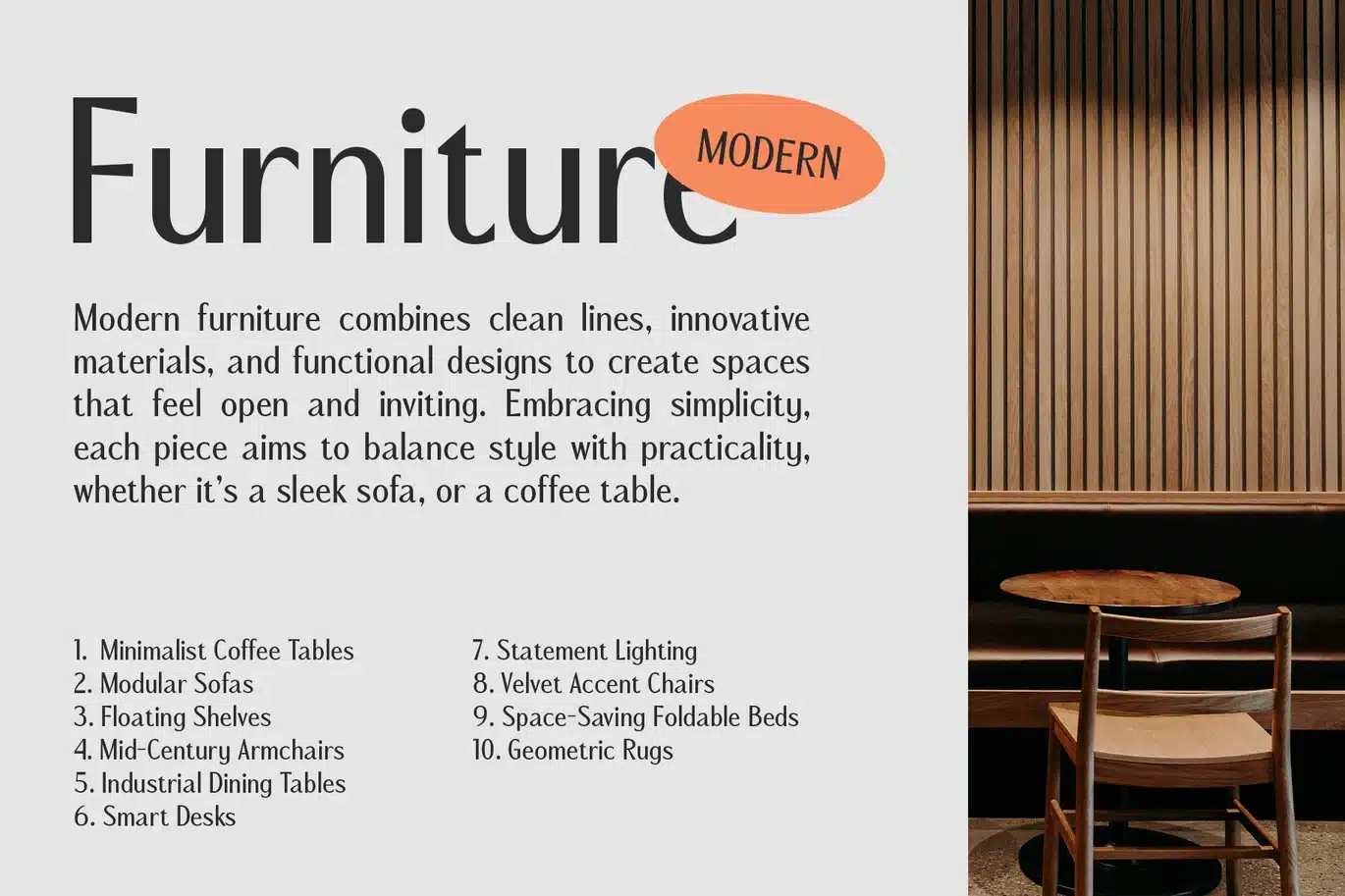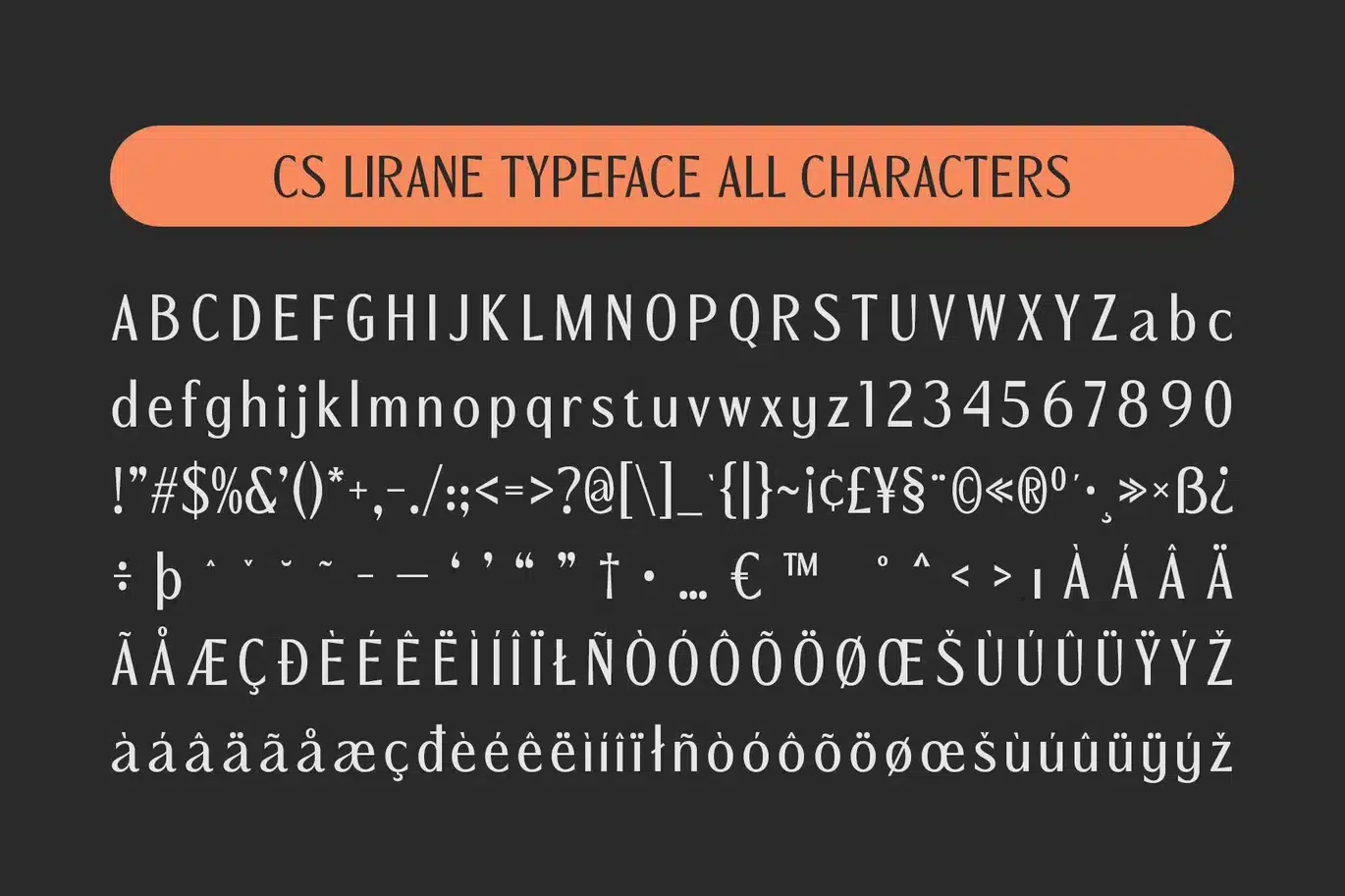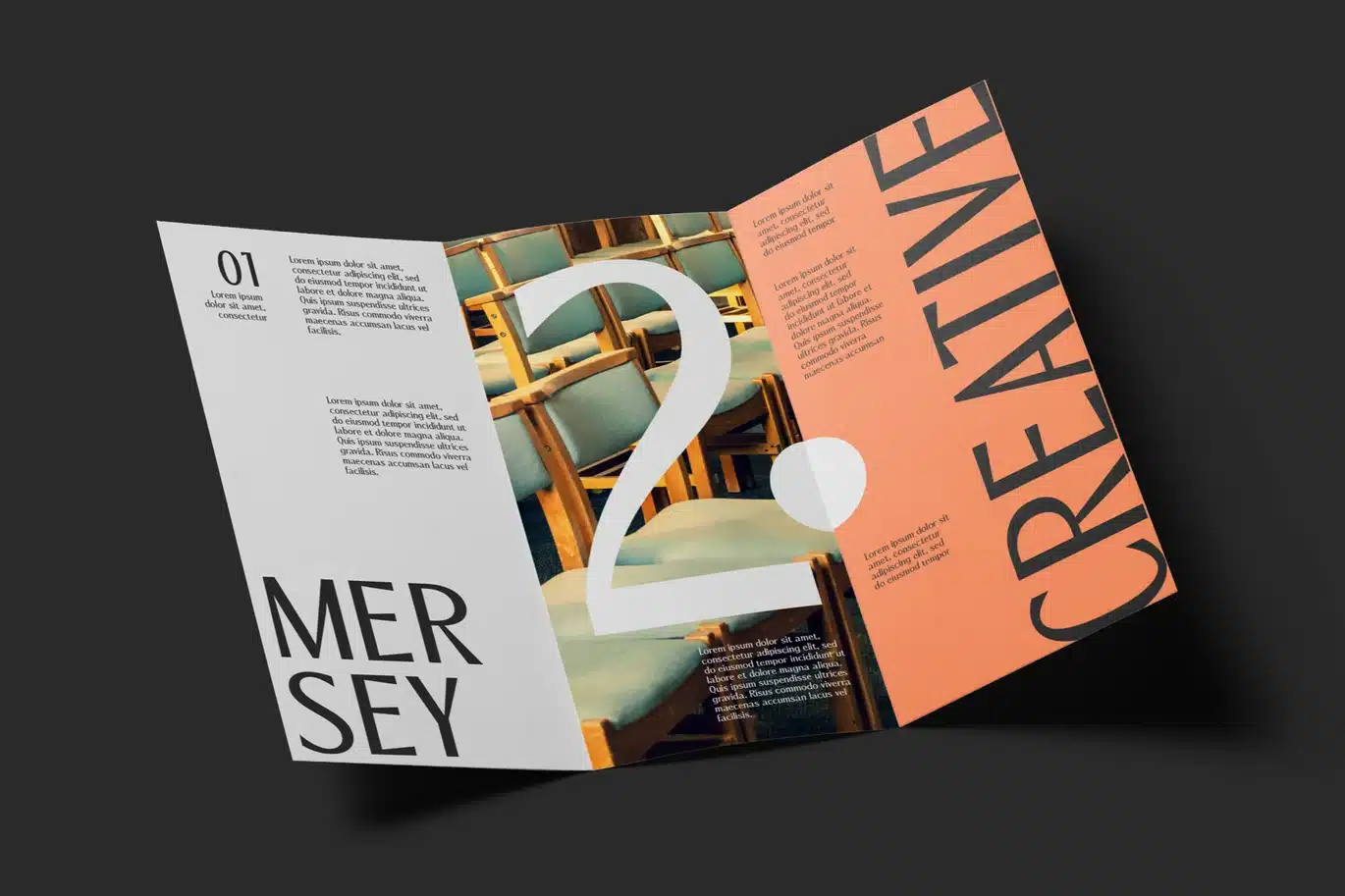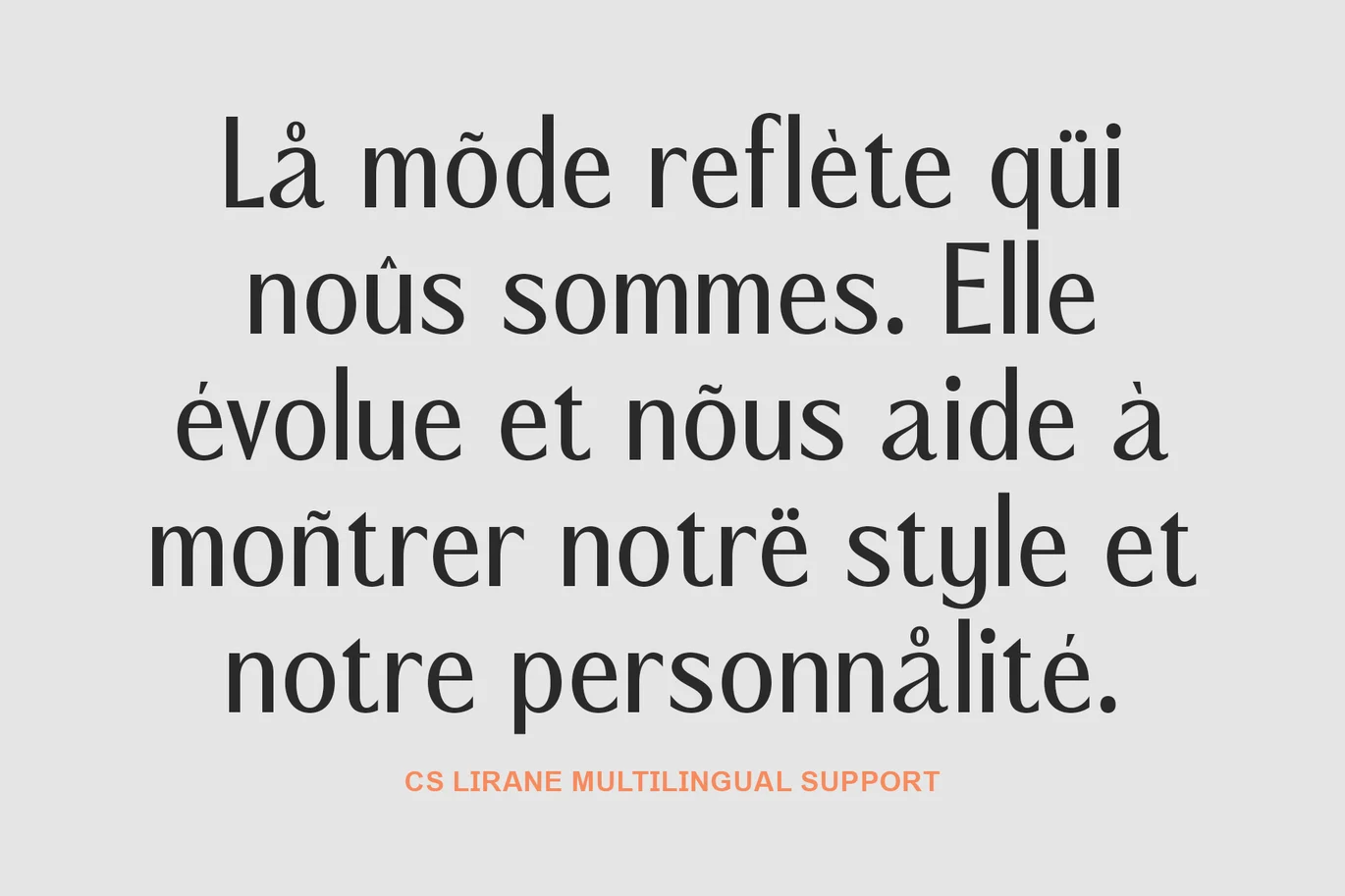
Lirane – Contemporary Font
CS Lirane Font: Clean and Modern Sans Serif Font
Sleek Geometric Design
CS Lirane is a modern sans serif font that embodies a contemporary aesthetic through its geometric shapes and clean lines. The font’s design prioritizes simplicity and clarity, making it an excellent choice for a wide range of modern applications. Its minimalist appearance ensures that your text remains legible while also offering a sleek, professional look that resonates with today’s design trends.
Versatility for Professional Projects
This font’s sharp and well-defined characteristics lend themselves perfectly to various professional projects. Whether you’re developing branding materials, creating eye-catching web designs, or designing impactful marketing collateral, CS Lirane provides the versatility needed to adapt seamlessly to any context. Its modern sensibility enhances the overall presentation, making it a preferred choice for businesses aiming to convey sophistication and reliability.
Conveying Modernity and Efficiency
With its contemporary flair, CS Lirane effectively communicates a sense of modernity and efficiency. The font’s clean, geometric forms create a visual identity that feels both fresh and dynamic. This makes it an ideal option for presentations, reports, and digital applications, where clarity and professionalism are paramount. The balanced structure of CS Lirane ensures that your message is delivered effectively, capturing attention without overwhelming the viewer.